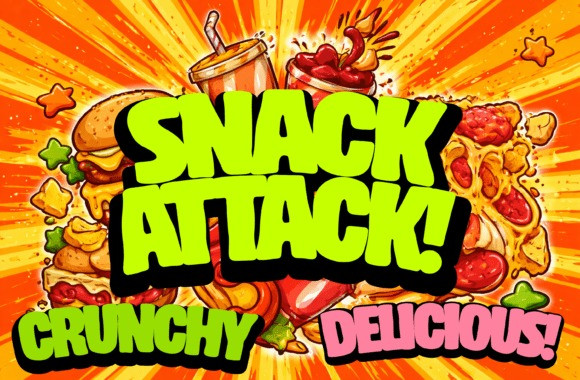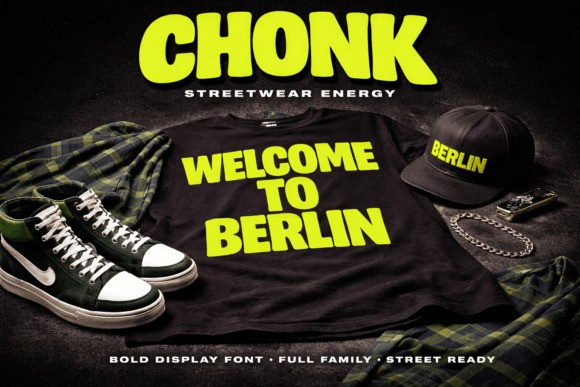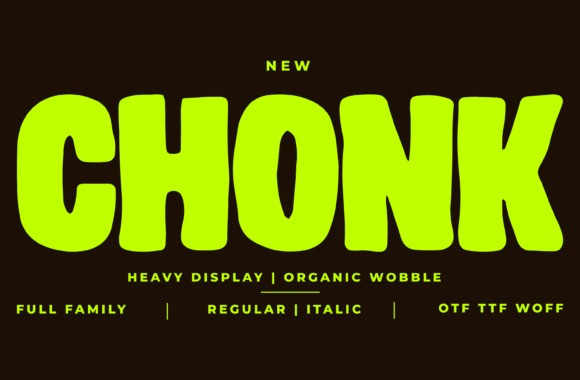
CHONK FONT
Chonk Font is a bold, chunky display font designed to grab attention instantly.With its organic wobble shapes and heavy weight, it delivers strong visual impact while staying highly readable — perfect for designs that need to stand out.